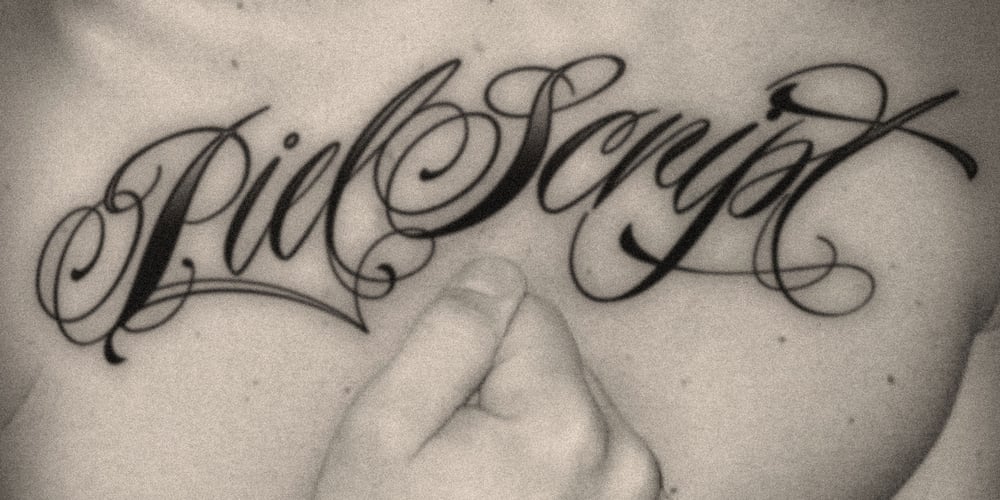
Piel Script Font Family was designed by Alejandro Paul and published by Sudtipos. Piel Script contains 2 styles and family package options. Over the past couple of years I received quite a number of unusual and surprising requests to modify my type designs to suit projects of personal nature, but none top the ones that asked me to typeset and modify tattoos using Burgues Script or Adios. At first the whole idea was amusing to me, kind of like an inside joke. I had worked in corporate branding for a few years before becoming a type designer, and suddenly I was being asked to get involved in personal branding, as literally “personal” and “branding” as the expression can get. After a few such requests I began pondering the whole thing from a professional perspective. It was typography, after all, no matter how unusual the method or medium. A very personal kind of typography, too. The messages being typeset were commemorating friends, family, births, deaths, loves, principles, and things that influenced people in a deep and direct way, so much so that they chose to etch that influence on their bodies and wear it forever. And when you decide to wear something forever, style is of the essence. After digging into the tattooing scene, I have a whole new respect for tattoo artists. Wielding that machine is not easy, and driving pigment into people’s skin is an enormous responsibility. Not to mention that they’re some of the very few who still use a crafty, hands-on process that is all but obsolete in other ornamentation methods. Some artists go the extra mile and take the time to develop their own lettering for tattooing purposes, and some are inventive enough to create letters based on the tattoo’s concept. But they are not the norm. Generally speaking, most tattoo artists use generic type designs to typeset words. Even the popular blackletter designs have become quite generic over the past few decades. I still cringe when I see something like Bank Script embedded into people’s skin, turning them into breathing, walking shareholder invitations or government bonds. There’s been quite a few attempts at making fonts out of whatever original tattoo designer typefaces can be found out there – wavy pseudo-comical letters, or rough thick brush scripts, but as far as I could tell a stylish skin script was never attempted in the digital age. And that’s why I decided to design Piel Script. Piel is Spanish for skin. In a way, Piel Script is a removed cousin of Burgues Script. Although the initial sketches were infused with some 1930s showcard lettering ideas (particularly those of B. Boley, whose amazing work was shown in Sign of the Times magazine), most of the important decisions about letter shapes and connectivity were reached by observing whatever strengths and weaknesses can be seen in tattoos using Burgues. Tattoos using Adios also provided some minor input. In retrospect, I suppose Affair exercised some influence as well, albeit in a minor way. I guess what I’m trying to say is there is as much of me in Piel Script as there is in any of the other major scripts I designed, even though the driving vision for it is entirely different from anything else I have ever done. I hope you like Piel Script. If you decide it to use it on your skin, I’ll be very flattered. If you decide to use it on your skateboard or book cover, I’ll be just as happy. Scripts can’t get any more personal than this. Piel Script received the Letter2 award, where they selected the best 53 typefaces of the last decade, organised by ATypI.